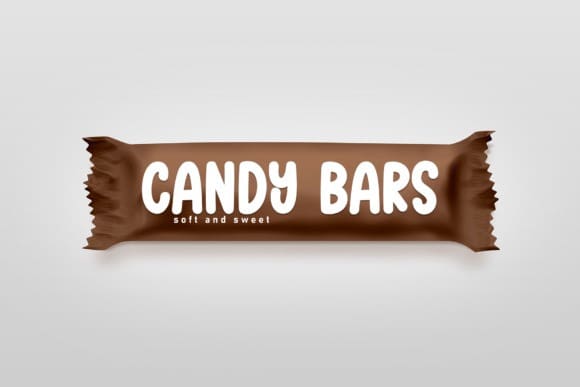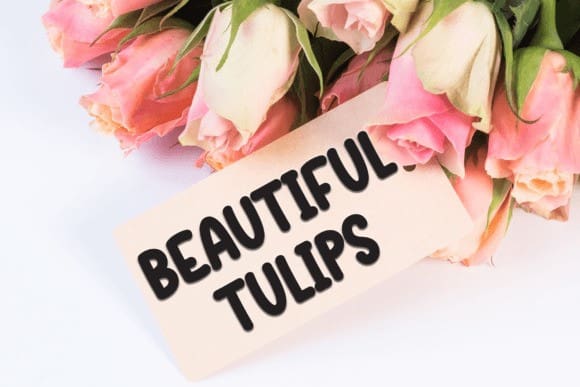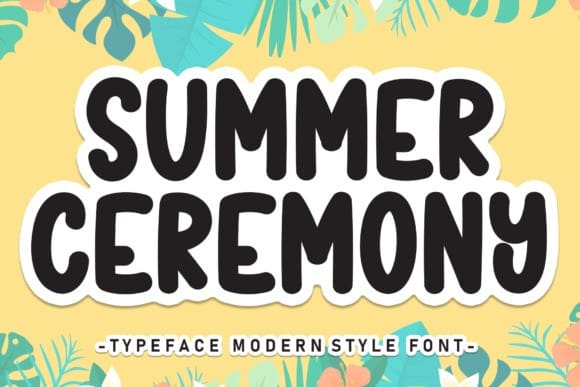
Summer Ceremony Font
Summer Ceremony font, the newest typeface perfect for wall displays, wedding invitations, social media post logos, advertising, product packaging, product design, labels, photography, watermarks, invitations, stationery, and any project that requires delicate handwriting.